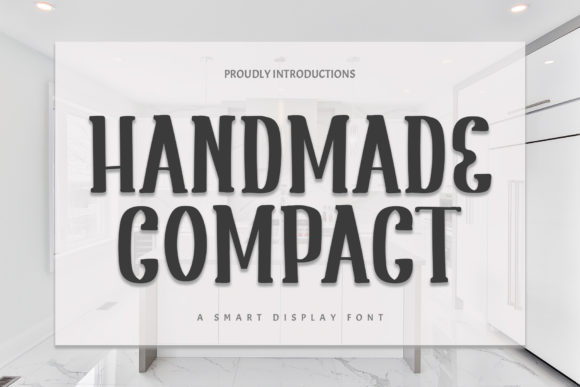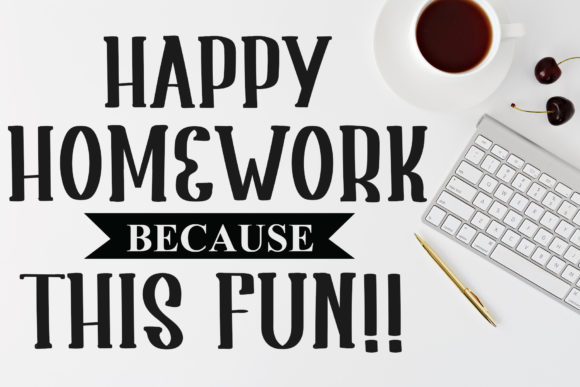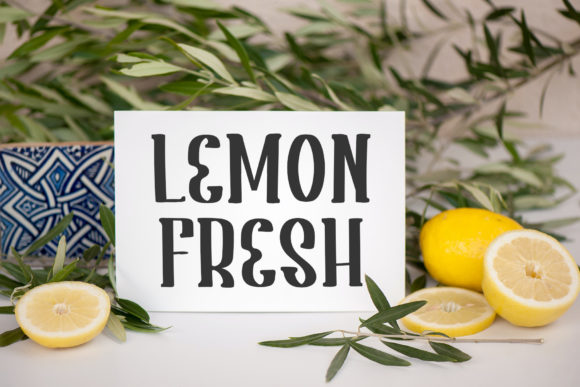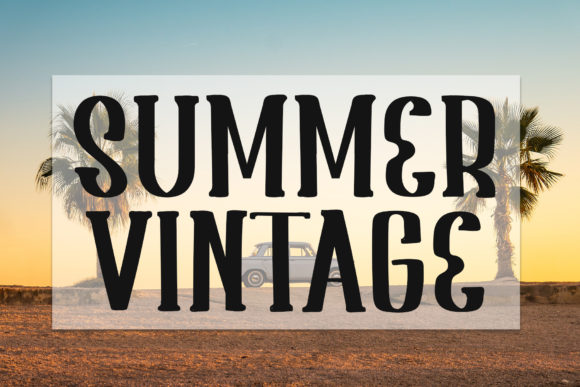
HANDMADE COMPACT FONT SPECIMEN
Introducing Handmade Compact, a beautiful and neat slab serif font that adds a touch of elegance to make your designs stand out from the crowd. With its refined letterforms, Handmade Compact brings a sense of sophistication and style to your projects. This font is perfect for a wide range of applications, including wall displays, wedding invitations, social media posts, logos, advertisements, product packaging, product designs, labels, photography, watermarks, invitations, stationery, and any project that requires modern typography.
Handmade Compact’s beautiful and neat design sets it apart as a font that exudes a sense of elegance and refinement. Its carefully crafted characters carry a harmonious balance and create a visually pleasing composition. Whether used for wall displays, wedding invitations, or social media posts, Handmade Compact adds a touch of sophistication that enhances the visual appeal.
The versatility of Handmade Compact allows it to be suitable for various design projects. Whether you’re working on branding materials, advertisements, or product packaging, Handmade Compact’s modern typography adds a contemporary touch that keeps your designs fresh and visually appealing.
Handmade Compact’s refined letterforms make it an ideal choice for logos. Its neat and stylish appearance creates a distinctive and memorable brand identity. Handmade Compact ensures that your logo stands out and leaves a lasting impression.
For wedding invitations, Handmade Compact adds a touch of elegance and sophistication. Its beautiful and neat letterforms convey a sense of grace and style, setting the tone for a special occasion. Handmade Compact enhances the overall aesthetic of your invitations, making them visually captivating and memorable.
In addition to weddings, Handmade Compact is suitable for various other projects. Whether you’re designing social media posts, labels, or product designs, Handmade Compact’s modern typography adds a professional and stylish element. Its versatility allows for consistent and visually pleasing typography throughout your designs.
Handmade Compact’s versatility and beauty extend to photography, watermarks, and stationery. Its refined letterforms enhance the visual impact of photographs, add a personal touch to watermarks, and create a sophisticated appearance on stationery.
In summary, Handmade Compact is a beautiful and neat slab serif font that enhances the visual appeal of your designs. Its suitability for wall displays, wedding invitations, social media posts, logos, advertisements, product packaging, product designs, labels, photography, watermarks, invitations, stationery, and more makes it a versatile and valuable choice. Embrace Handmade Compact and let its elegance and modern typography elevate your designs, making them stand out with sophistication.